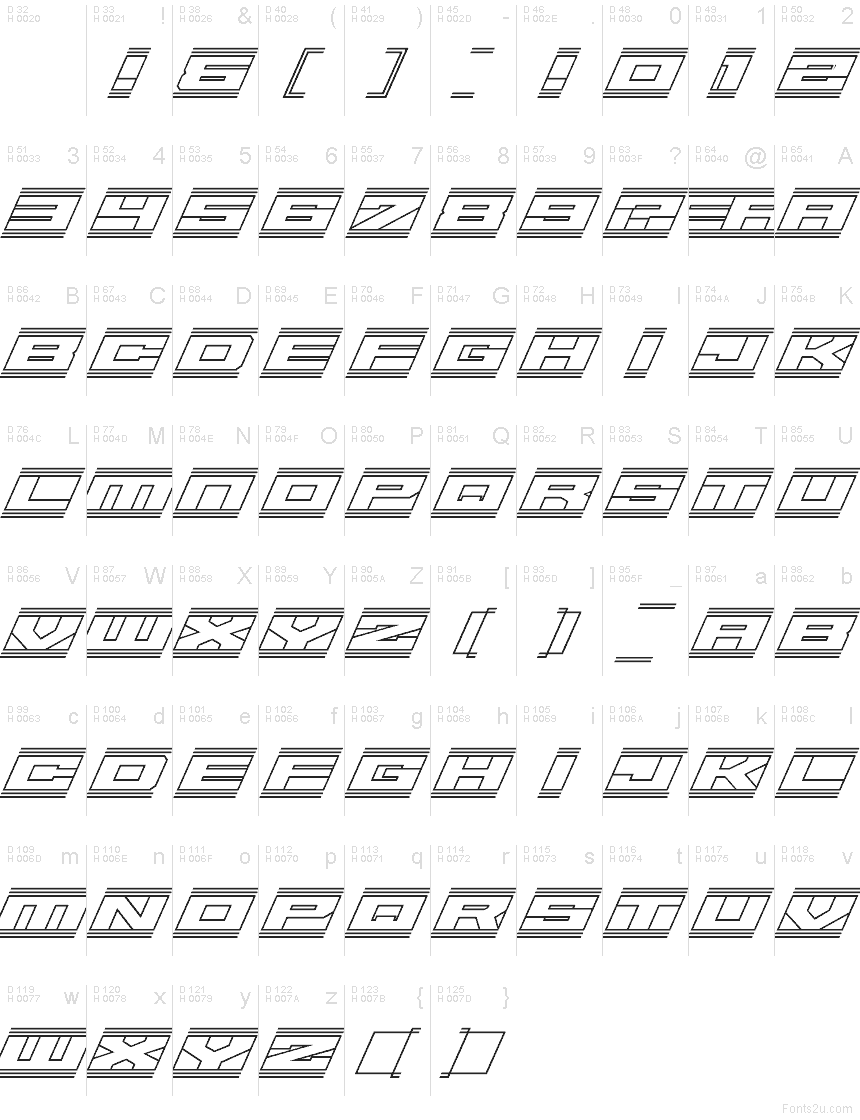
Gear6-Whitelines
Gear6 Whitelines font by Youssef Habchi is a free techno racing outline display font. Built like a slanted chassis with crisp parallel “whitelines,” it looks tuned for speed—angular corners, aerodynamic tilt, and track-style striping that reads fast even standing still. As part of the Gear6 family, its hollow forms and layered rules create a high-contrast, high-octane rhythm that pops on dark or bright backgrounds.
Using Gear6 Whitelines, headlines snap to attention for motorsport posters, esports branding, streaming overlays, tech event titles, energy drink campaigns, and futuristic packaging. This free font shines when set large in all caps with slightly tightened spacing. Pair it with a sturdy sans like a neutral grotesk for body copy to keep the message clean while the display work does the overtaking.